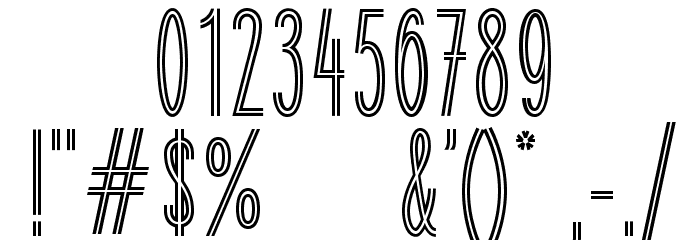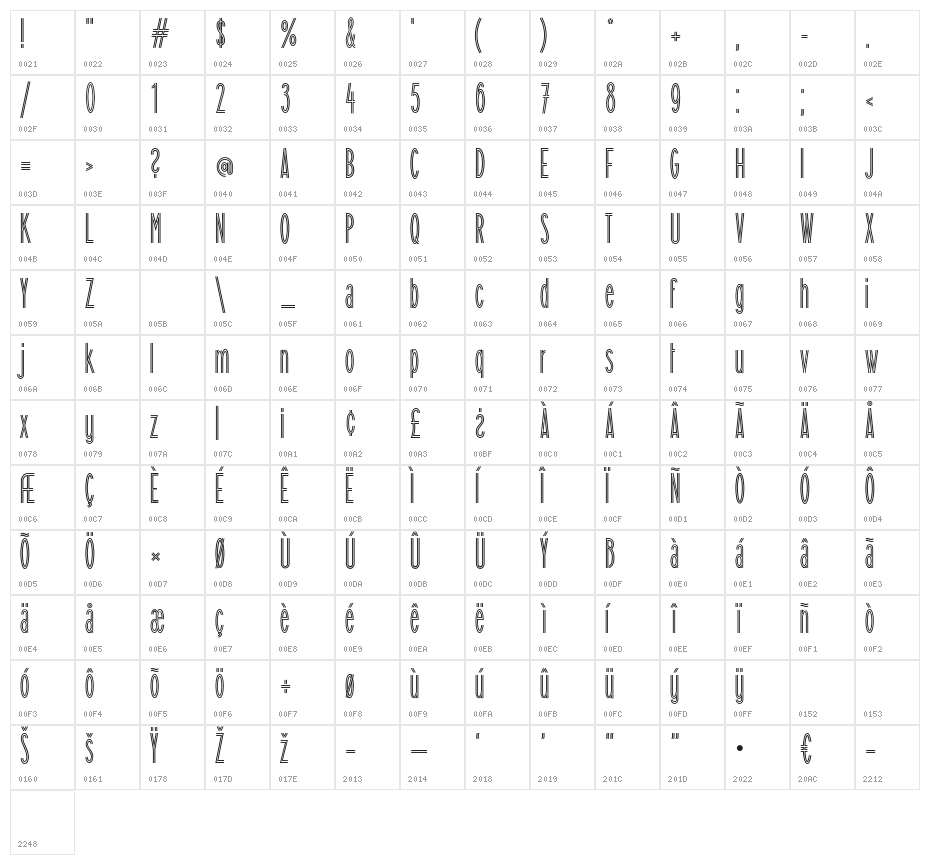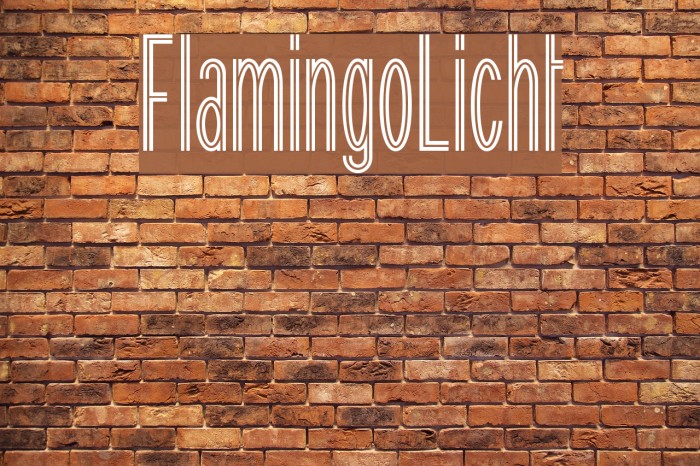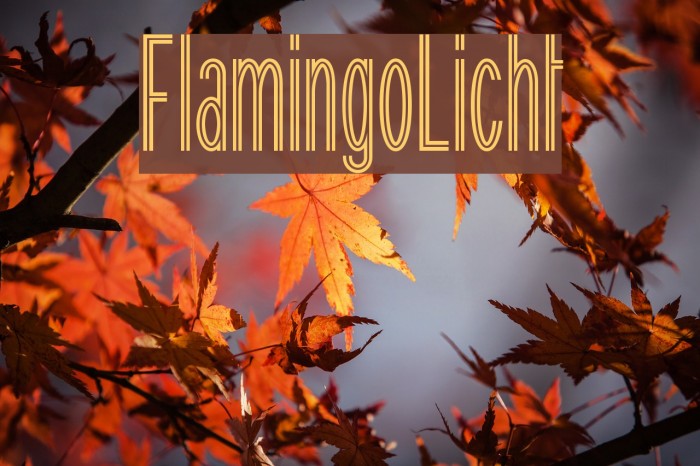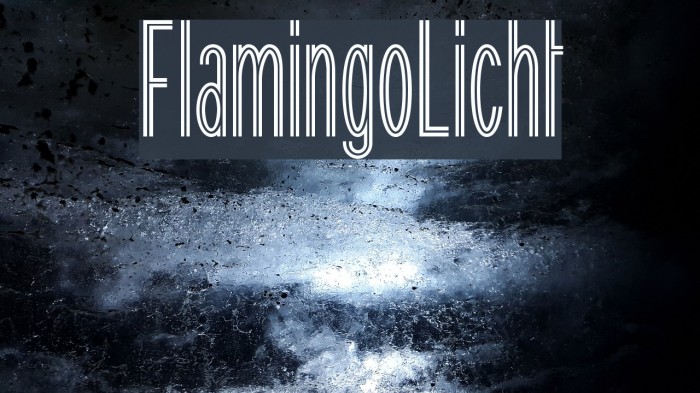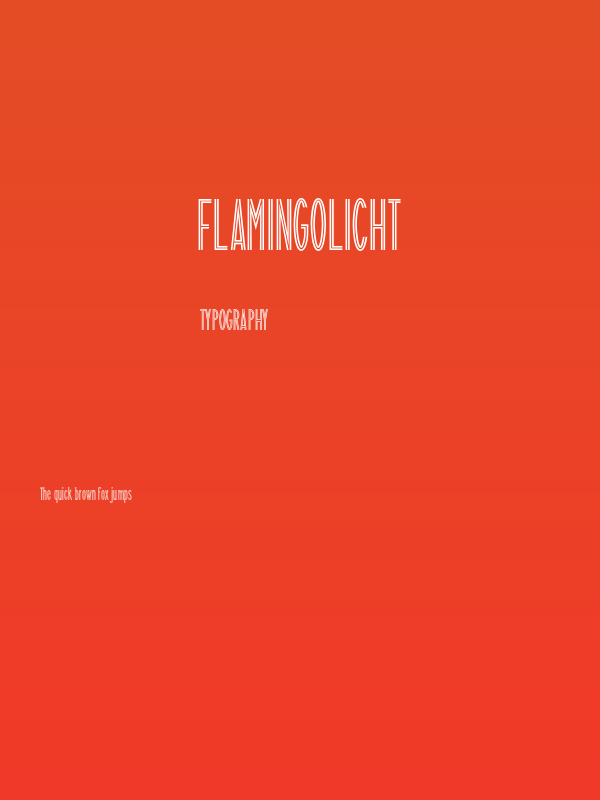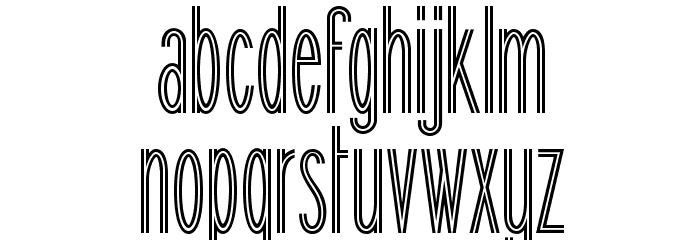
FlamingoLicht Font
FlamingoLicht Description
This font features a tall, narrow design with a distinctively modern and elegant appearance. The characters are elongated with a consistent stroke width, giving it a sleek and sophisticated look. The uppercase and lowercase letters maintain a uniform height, contributing to its streamlined aesthetic. The numerals are similarly styled, ensuring a cohesive appearance across all characters. The special characters are designed to match the overall style, making this font suitable for a variety of applications where a refined and contemporary look is desired.
| Proposed Projects | Ideal for fashion magazines, luxury branding, elegant invitations, and modern website headers. |